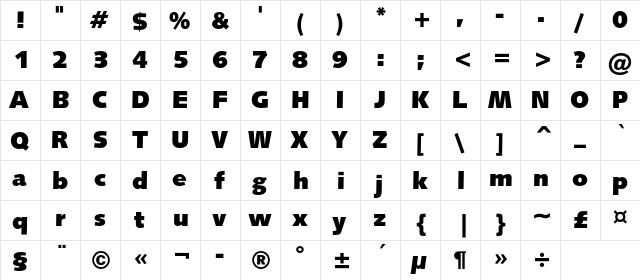
Humanist531CBT UltraBlack Regular
Design Context for Humanist531CBT UltraBlack Typeface
Humanist531CBT UltraBlack is a composed and adaptable typeface that performs quietly and consistently across a wide range of design contexts.